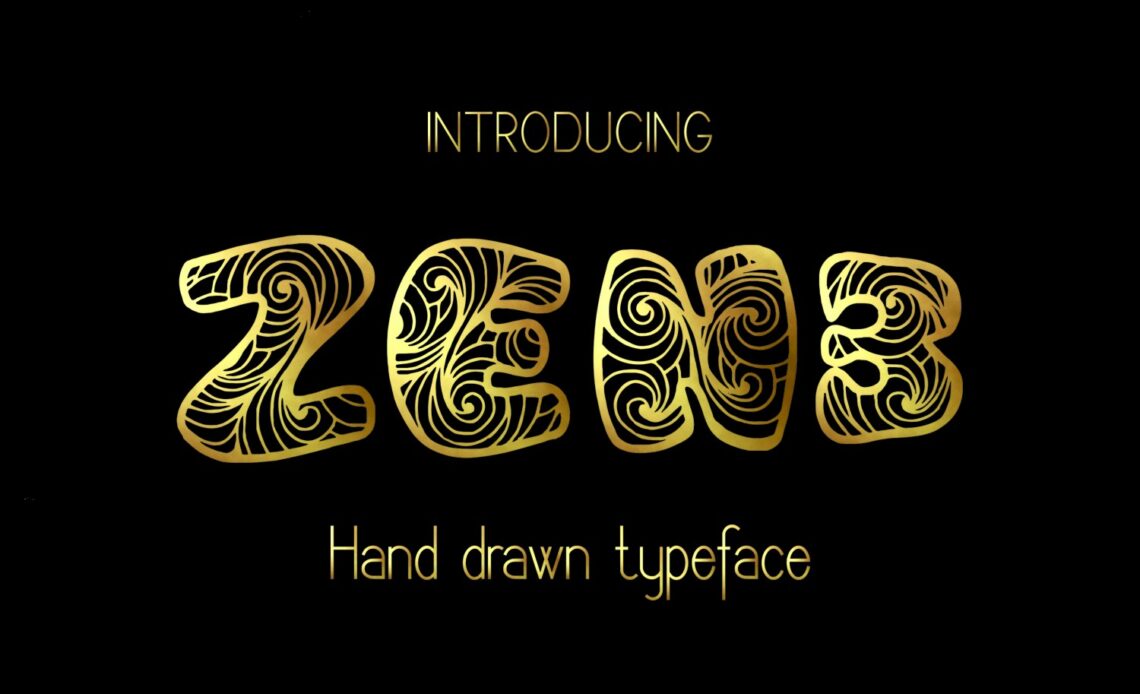
Zen3 Font
Step into the world of Zen3, a decorative hand-drawn font that captivates the senses and sets your designs apart. Created by the renowned Digital Typeface Studio, Zen3 is a masterpiece that transforms ordinary words into breathtaking art.
With its whimsical and playful style, Zen3 adds a touch of magic to any project. Let your imagination soar as you create eye-catching titles, enchanting signage, and unforgettable posters. Turn flyers and t-shirts into canvases of creativity, where every letter dances with a unique charm.
Unleash the boundless potential of Zen3 in headlines that command attention and leave a lasting impression. Its intricate details and organic flow bring a sense of depth and texture to your designs, making them impossible to ignore.
Dive into the world of coloring pages, where Zen3's playful spirit shines through. Let your creativity flow freely as you bring life to each stroke and curve, creating a symphony of colors that soothe the soul and spark the imagination.
Zen3's versatility extends beyond the digital realm. Embark on a journey of creativity as you explore its potential as an embroidery pattern. Stitch each letter with care, transforming fabric into a tapestry of beauty that adds a personal touch to your wardrobe or home décor.
Zen3 is more than just a font; it's an invitation to unleash your creativity and embrace the limitless possibilities of self-expression. Its hand-drawn charm and intricate details ignite the imagination, turning ordinary designs into captivating masterpieces.